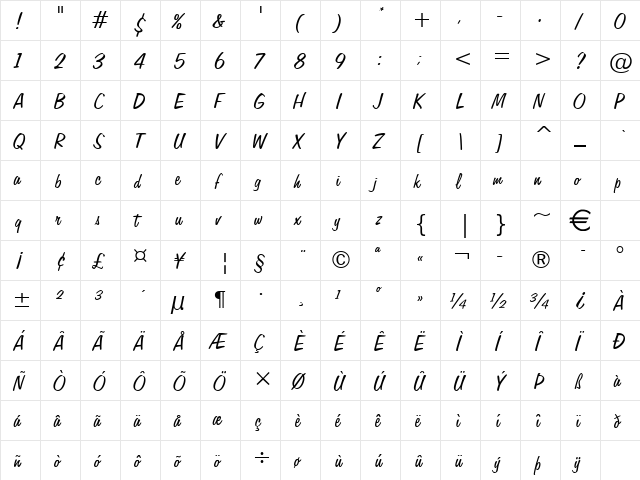
Joss Normal
Design Context for Joss Typeface
Joss offers clean, dependable letterforms without strong stylistic allegiance, making it a practical choice for designers who need flexibility.
Pro Tip: Use Joss in both headline and body roles to test its range before committing to a single application.